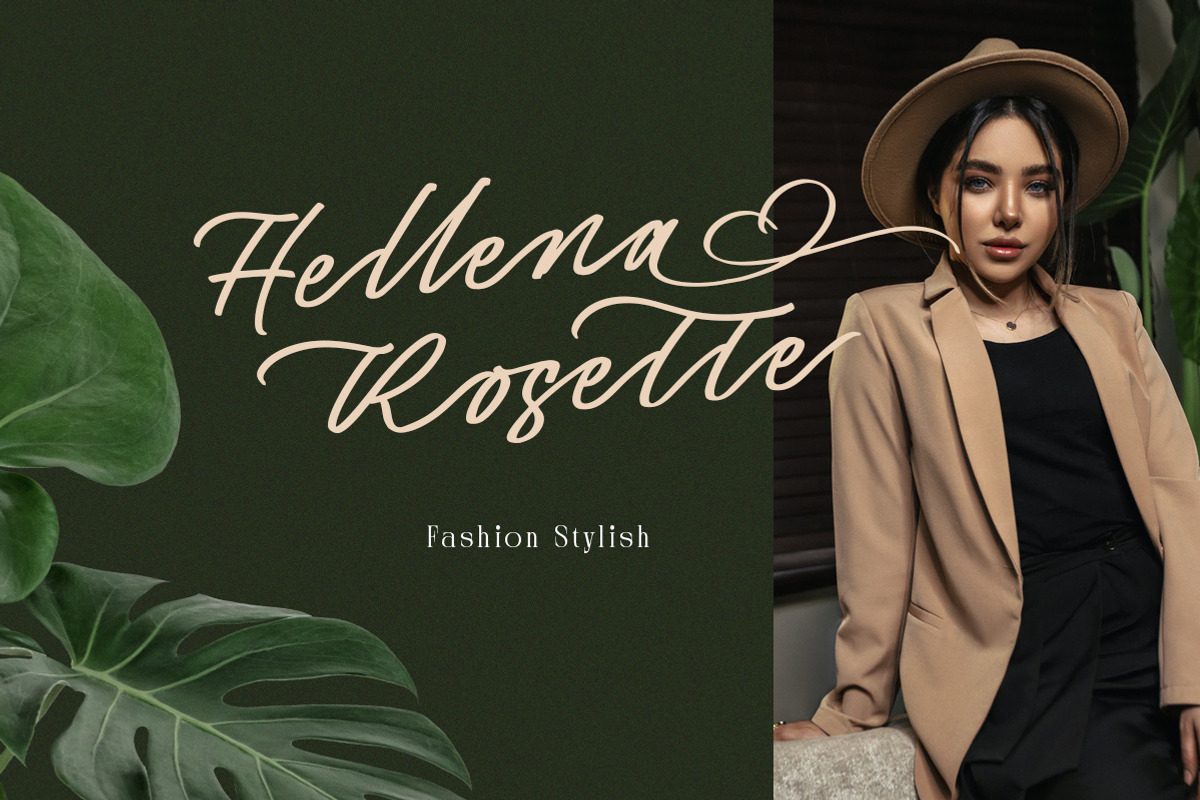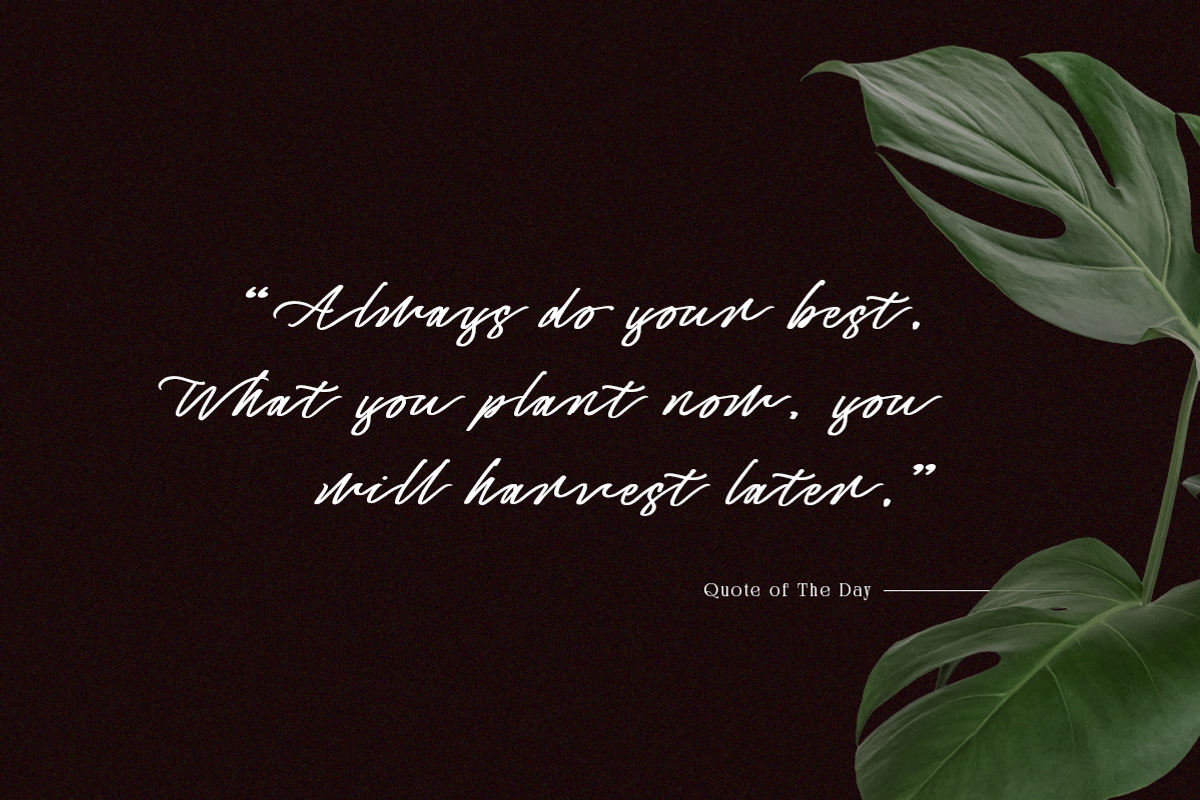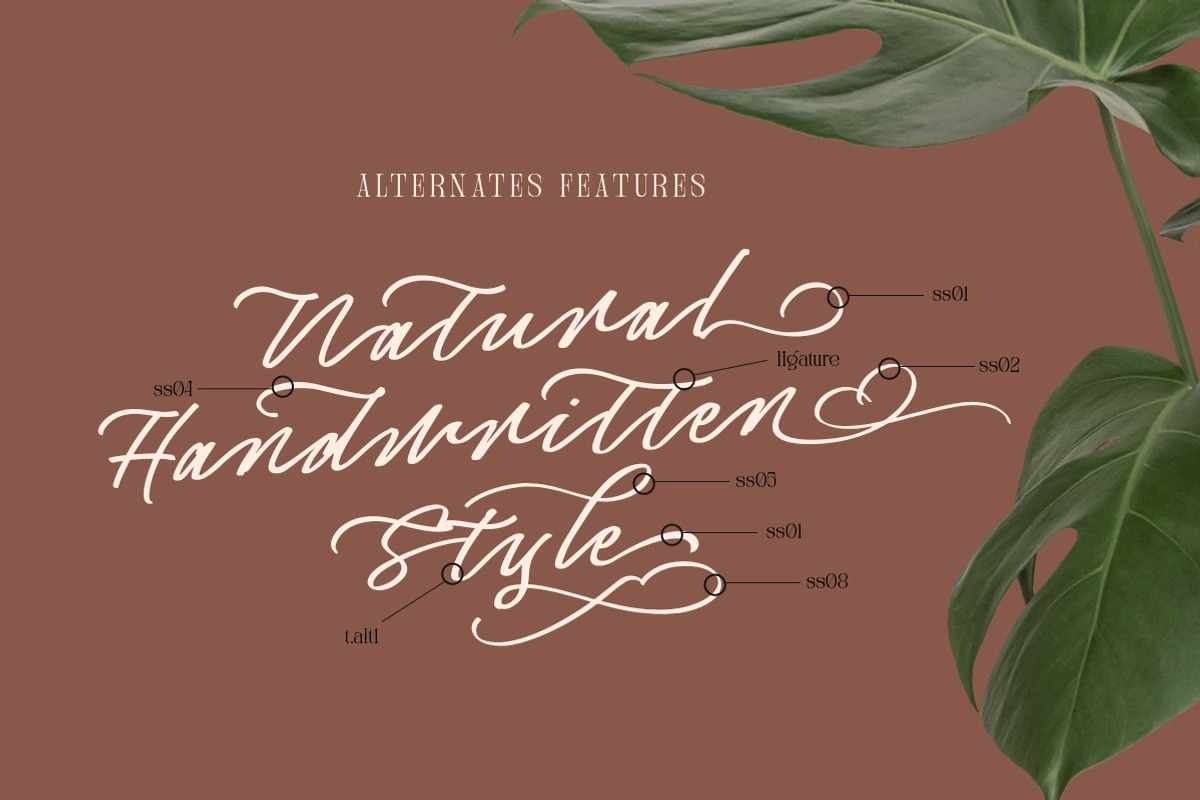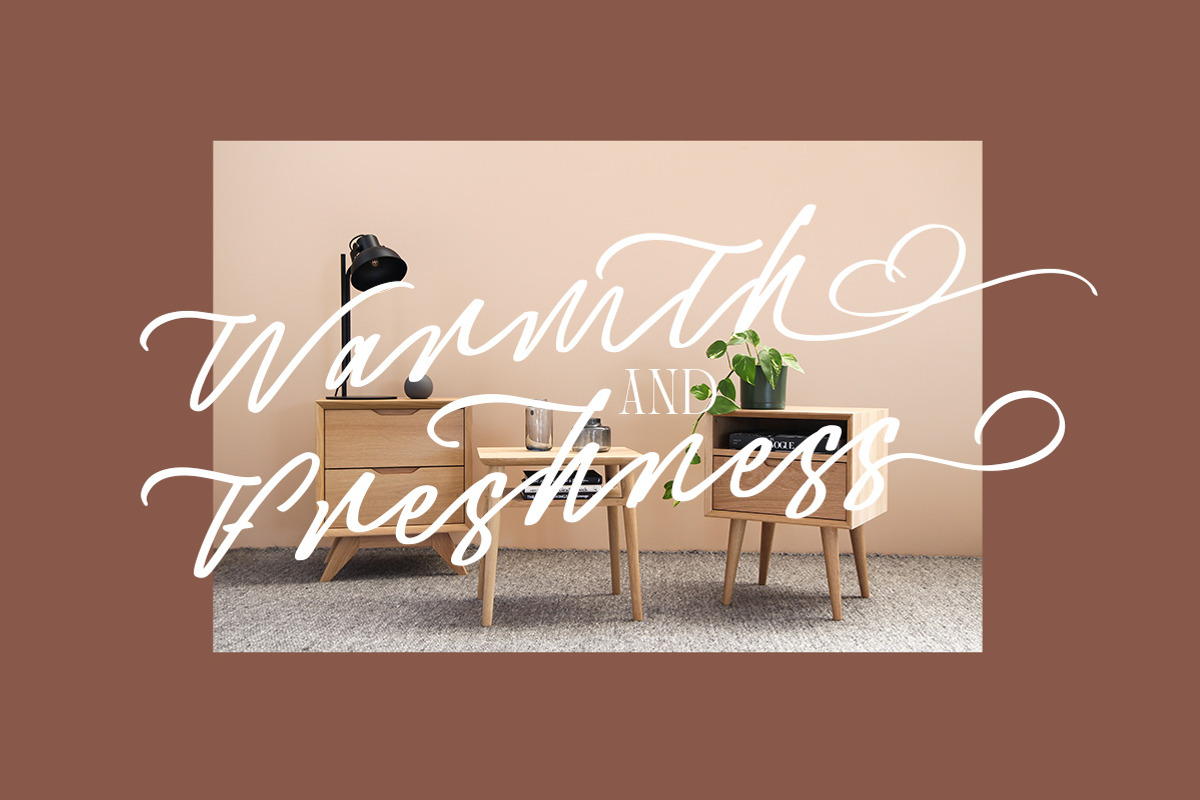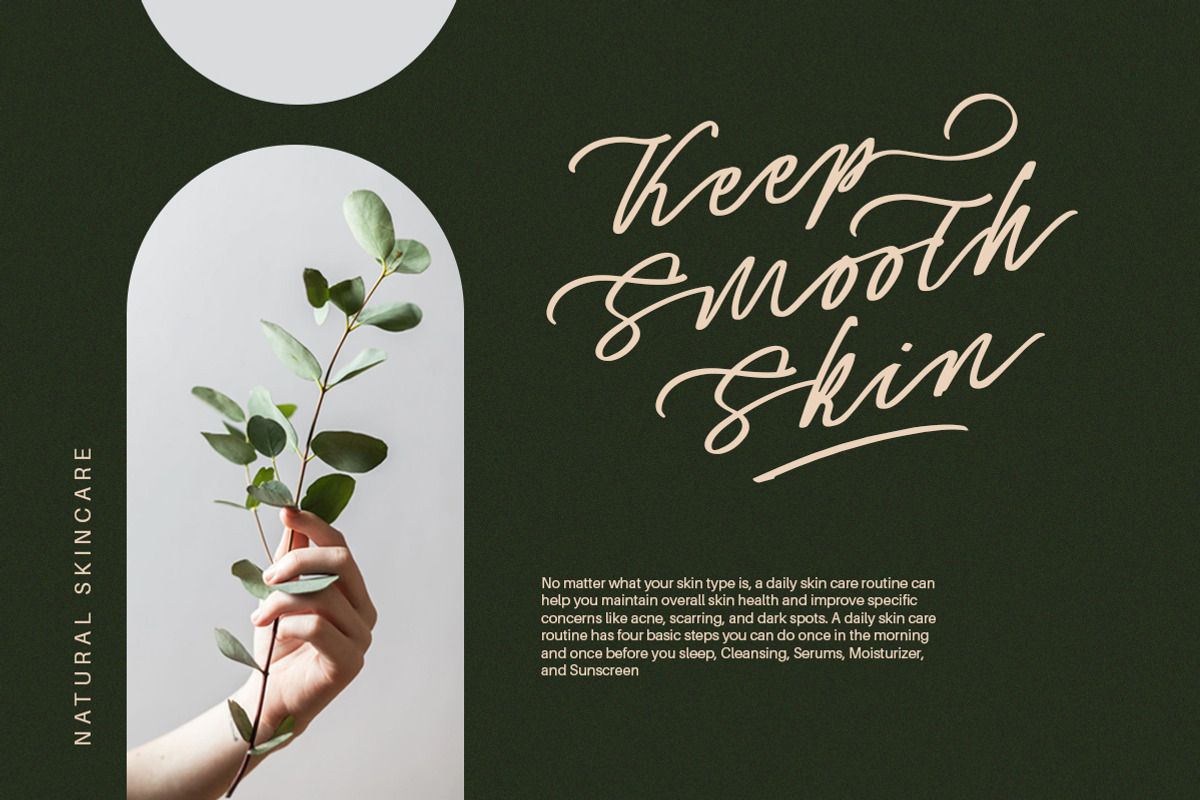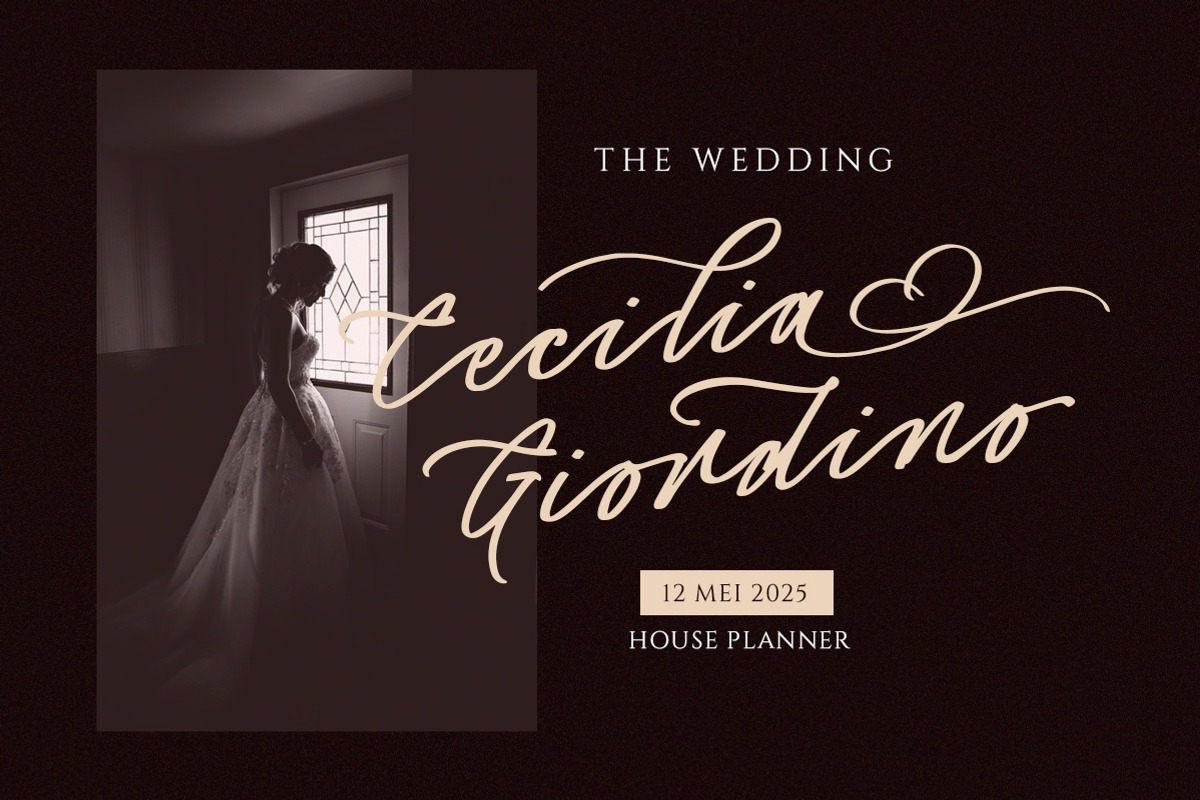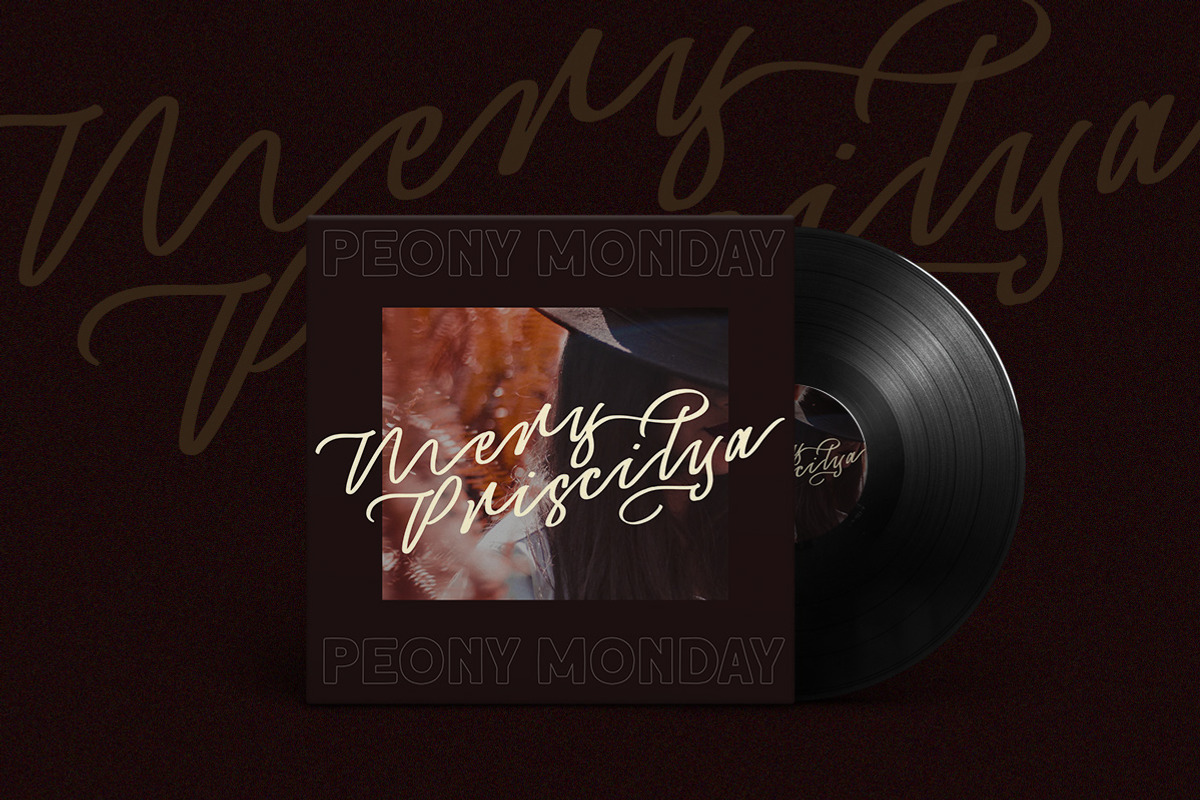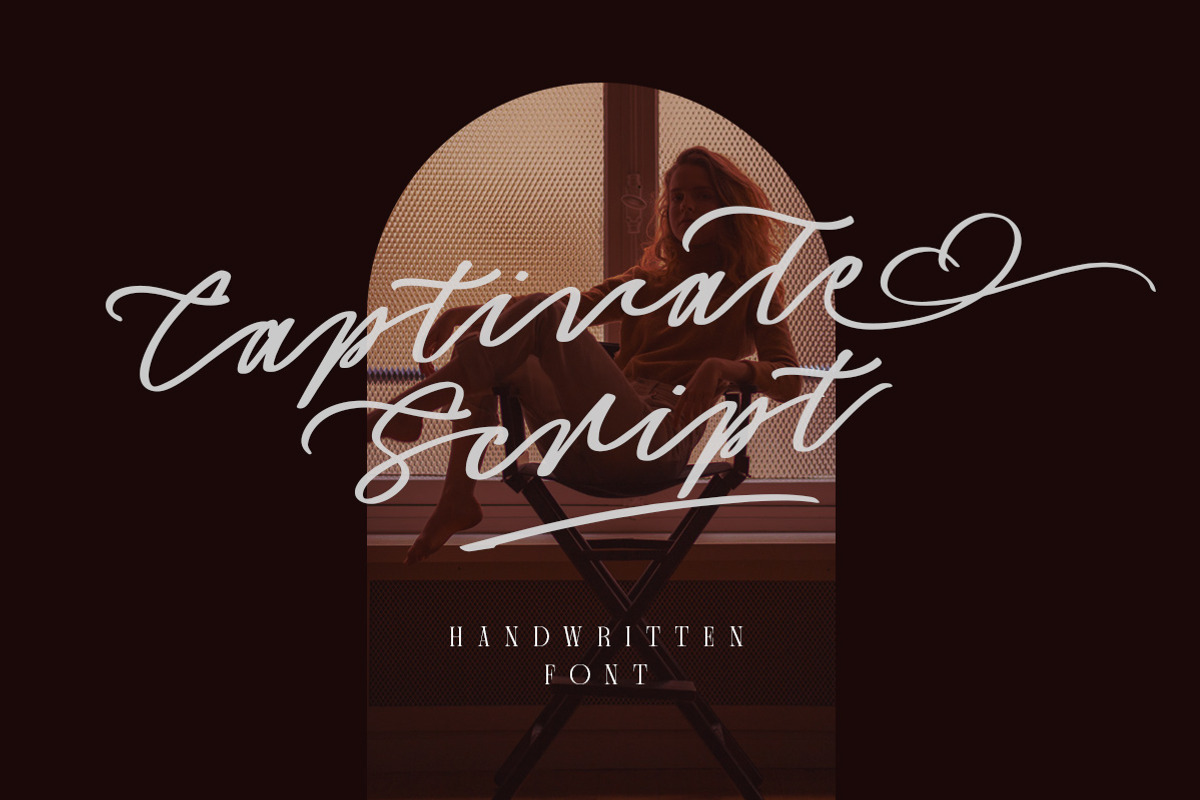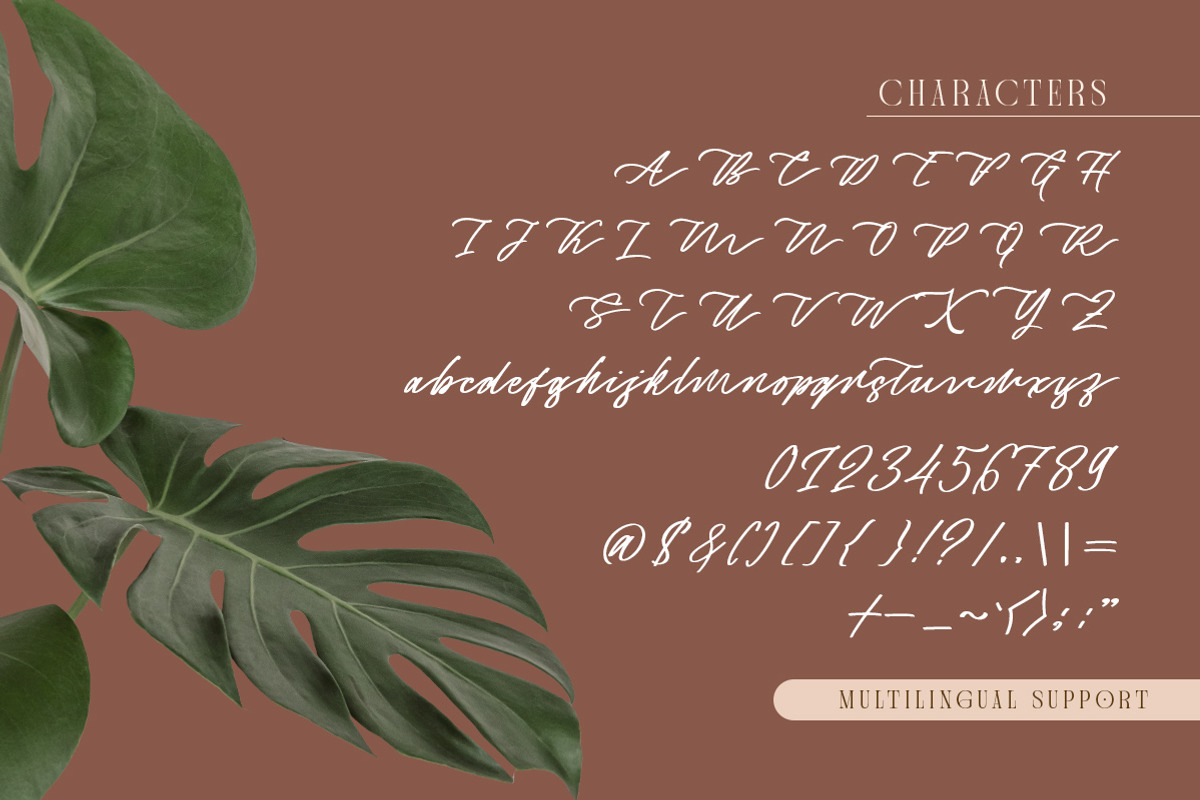
Captivate Script
Introducing, Captivate Script - A beautiful modern calligraphy script based on manual hand writing. The natural flow with the swashes make this font looks even more prettier. This type of font perfectly made to be applied especially in wedding invitation, labels, logos, magazines, books, greeting / wedding cards, packaging, fashion, make up, stationery, novels, labels or any type of advertising purpose.
- swash and ligature
- alternates